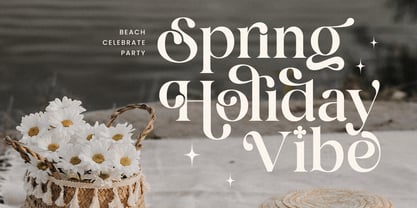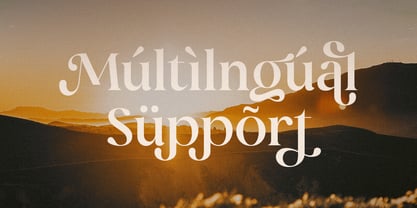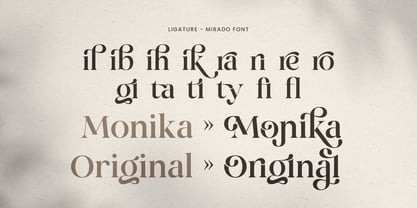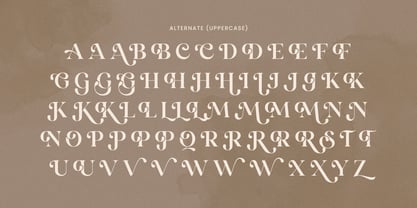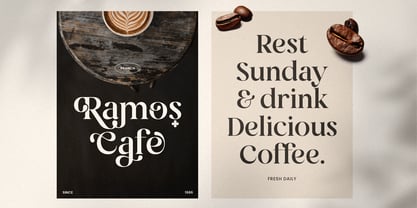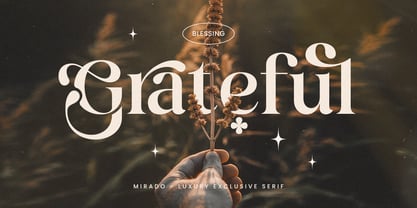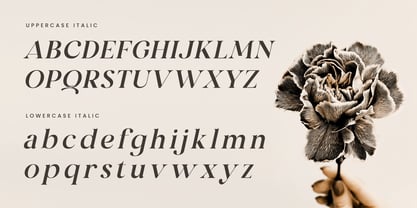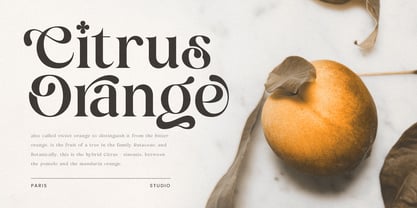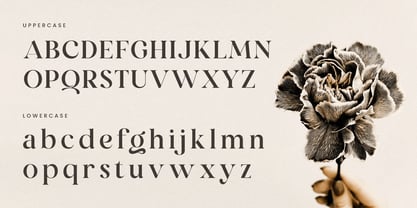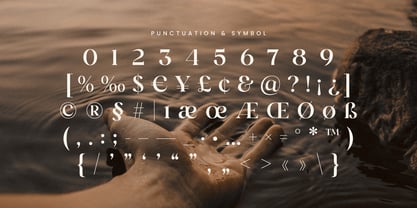
Mirado
by Sensatype Studio
The Mirado Font Family was designed by Zamroni Hamzah and published by Sensatype Studio. Mirado contains 2 styles and family package options. More about this family
Mirado is a luxury serif font designed to embody exclusivity and elegance. With its refined and timeless design, it’s the perfect choice for high-end branding, packaging, and editorial projects. The graceful curves and meticulously crafted ligatures make Mirado stand out as a font that exudes sophistication and class.
Inspired by classic serif fonts, Mirado blends traditional elements with modern aesthetics, giving your designs a luxurious and contemporary feel. Its versatility allows it to adapt to a wide range of applications, from logos to magazine covers, while maintaining an exclusive and polished appearance. Mirado is more than just a font; it's a statement of luxury.
With features like ligatures and alternate characters, Mirado offers designers the tools to create truly unique and captivating typography. Whether you're working on a luxury brand or an elegant editorial, this font delivers the perfect blend of style and functionality.
Mirado Luxury Exclusive Serif Font Features:
• Luxury Ligature & Alternative Characters
• Unique Punctuation, Number, and Symbol
• Uppercase and Lowercase
• Multilingual Support
• Opentype Features